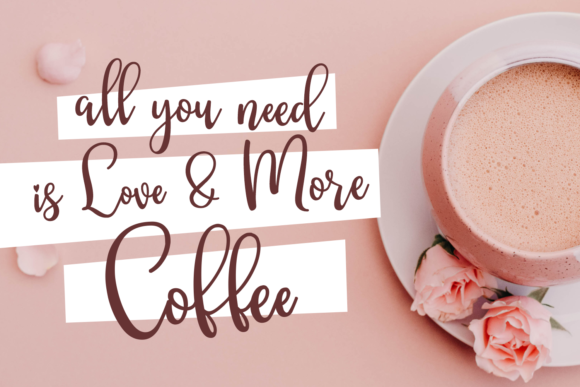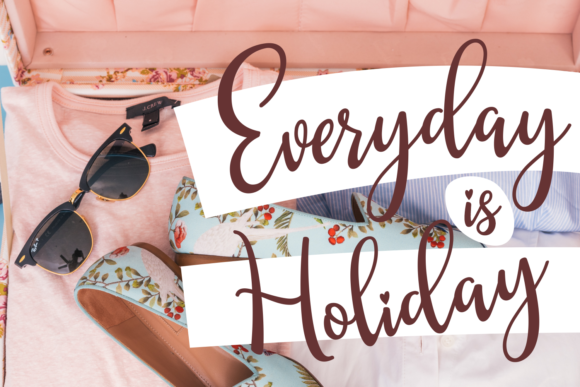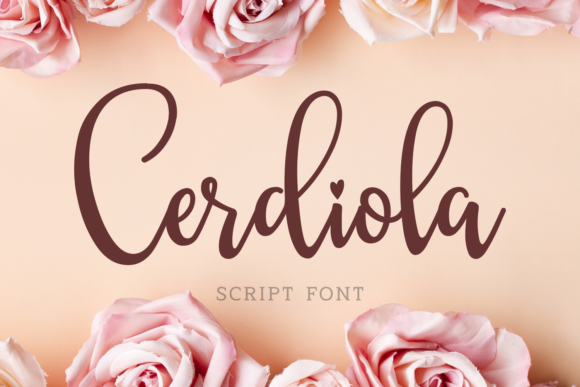
Cerdiola Font: The Perfect Script for Crafters and Designers
Are you a crafter or designer looking for a beautiful and versatile script font to elevate your creative projects? Look no further than Cerdiola Font! This stunning script presents the solution for all your crafting needs, and in this article, we’ll explore what makes it so special.
What is Cerdiola Font?
Cerdiola Font is a gorgeous script font designed to add a touch of elegance and sophistication to any project. With its flowing curves and intricate details, it’s perfect for crafters and designers who want to create beautiful and eye-catching designs. Whether you’re working on a DIY project, creating handmade cards, or designing digital products, Cerdiola Font is the perfect choice.
Key Features of Cerdiola Font
So, what makes Cerdiola Font so special? Here are some of its key features:
- Beautiful Script**: Cerdiola Font features a stunning script design with flowing curves and intricate details. It’s perfect for creating elegant and sophisticated designs.
- Versatile**: This font is incredibly versatile and can be used for a wide range of projects, from crafting and DIY to digital design and marketing.
- Easy to Read**: Despite its intricate details, Cerdiola Font is easy to read, making it perfect for body text and headings.
- Scalable**: This font is highly scalable, meaning it looks great at any size, from small captions to large headings.
Why Choose Cerdiola Font?
With so many fonts available, why choose Cerdiola Font? Here are just a few reasons:
- Unique Design**: Cerdiola Font features a unique and distinctive design that will set your projects apart from the crowd.
- Time-Saving**: With Cerdiola Font, you can create beautiful designs quickly and easily, saving you time and effort.
- Professional Results**: This font is perfect for crafters and designers who want to create professional-looking designs without spending hours on complicated design software.
How to Use Cerdiola Font
Using Cerdiola Font is easy! Here are a few tips to get you started:
- Pair with Other Fonts**: Cerdiola Font looks great when paired with other fonts, such as sans-serif fonts for a modern look or serif fonts for a more traditional feel.
- Experiment with Sizes**: Don’t be afraid to experiment with different sizes and styles to find the perfect look for your project.
- Use for Headings and Body Text**: Cerdiola Font is perfect for both headings and body text, making it a versatile addition to any design.
Cerdiola Font in Action
So, what can you create with Cerdiola Font? Here are a few examples:
- Handmade Cards**: Create beautiful handmade cards for special occasions, such as birthdays, weddings, and holidays.
- DIY Projects**: Add a touch of elegance to your DIY projects, such as scrapbooking, journaling, and crafting.
- Digital Products**: Use Cerdiola Font to create stunning digital products, such as printable art, planners, and social media graphics.
In conclusion, Cerdiola Font is a stunning script font that presents the solution for all your crafting needs. With its beautiful design, versatility, and ease of use, it’s perfect for crafters and designers who want to create professional-looking designs quickly and easily. So why wait? Fall in love with Cerdiola Font and start creating beautiful designs today!